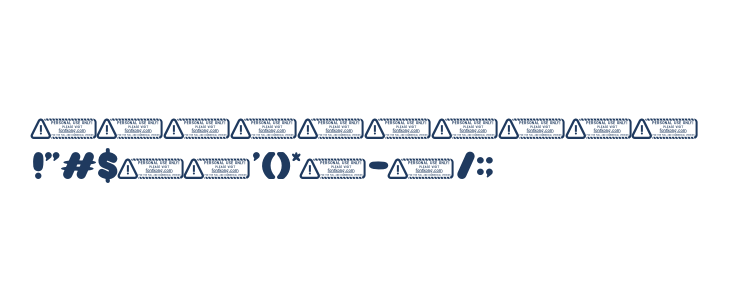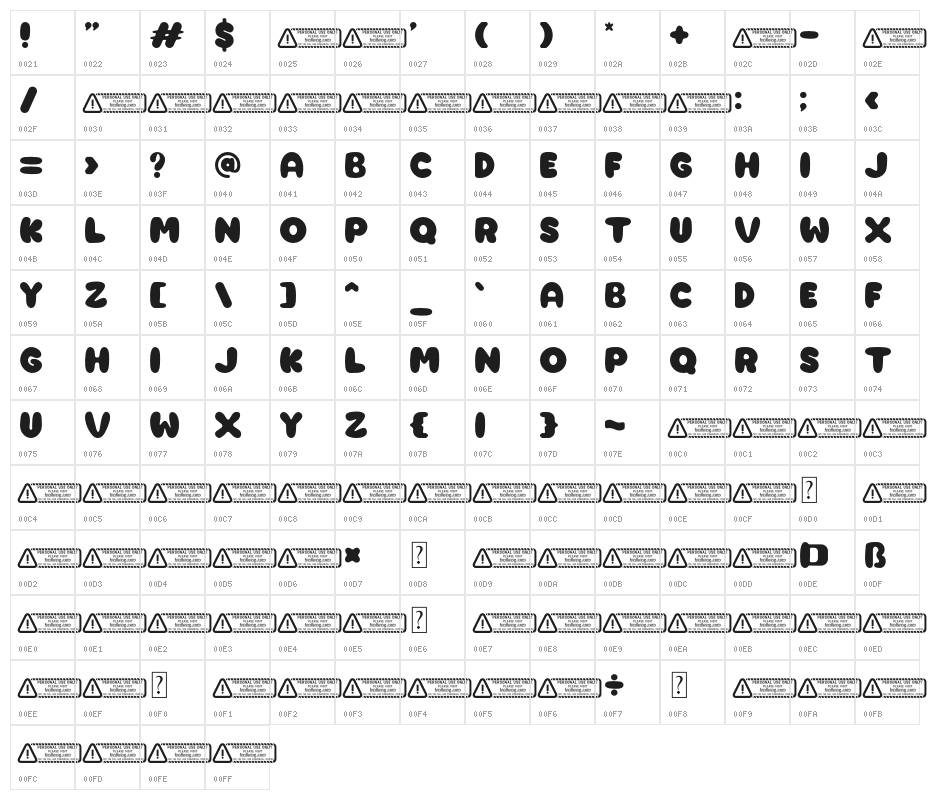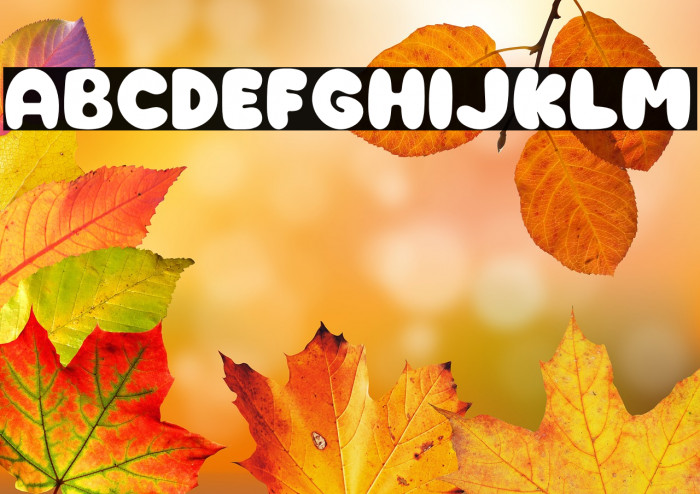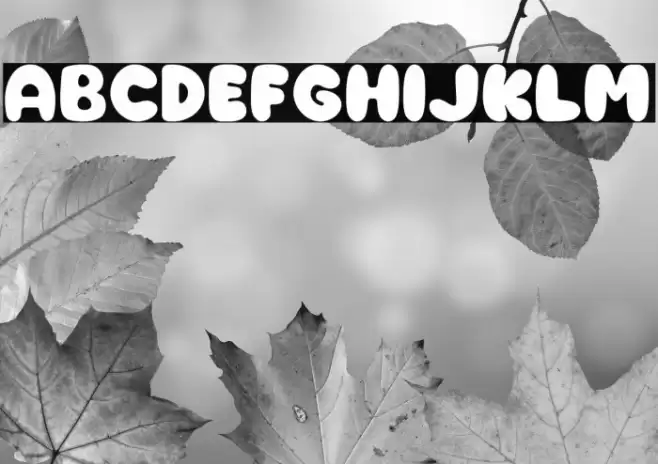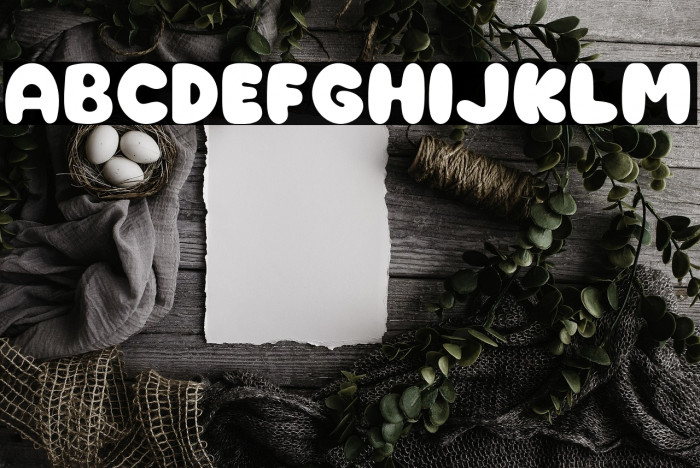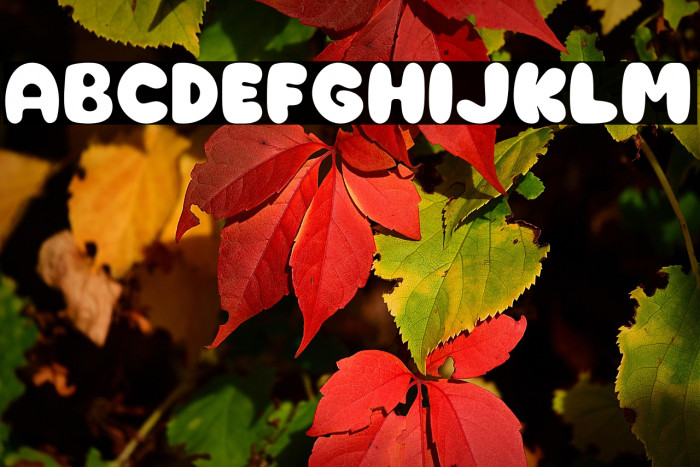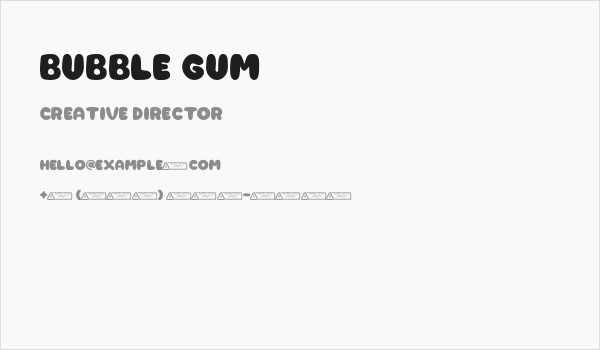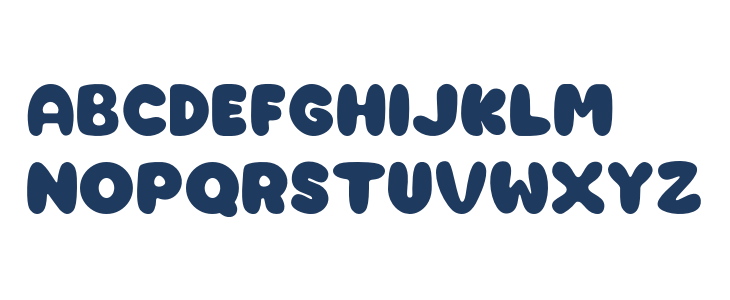
Bubble Gum Font
Bubble Gum Description
This playful and bold font features rounded, bubble-like characters that exude a sense of fun and whimsy. The letters are thick and have a soft, inflated appearance, reminiscent of bubble gum, making them highly eye-catching and suitable for informal and creative designs. The font maintains a consistent weight throughout, with smooth curves and no sharp edges, enhancing its friendly and approachable vibe. It is ideal for projects that require a lively and youthful touch, such as children's books, party invitations, or playful branding. The characters are evenly spaced, ensuring readability while maintaining the font's distinctive style.
| Overall Style | Playful, Fun, Whimsical |
| Proposed Projects | Children's books, party invitations, playful branding, posters, and merchandise. |